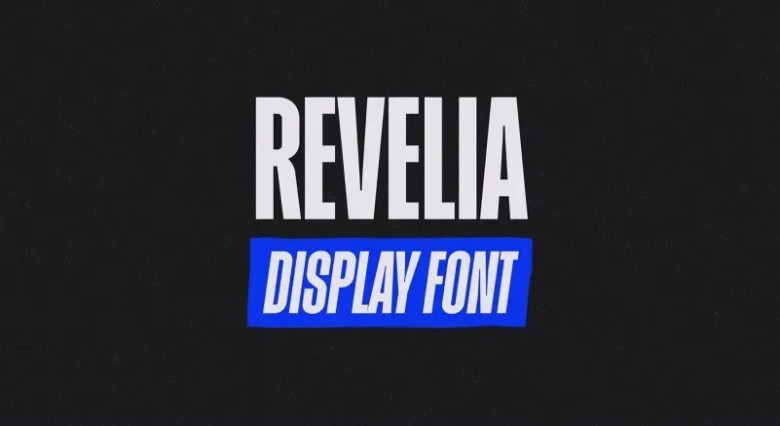
Revelia Font
Revelia is a bold, beautiful type that can’t be overlooked. This condensed grotesque, styled font was created for oddly huge headings, so its presence is very strong. It highlights films, programs, presentations, posters, advertising, posing, book/album printing, and branding among other items.
Revelia Display Font